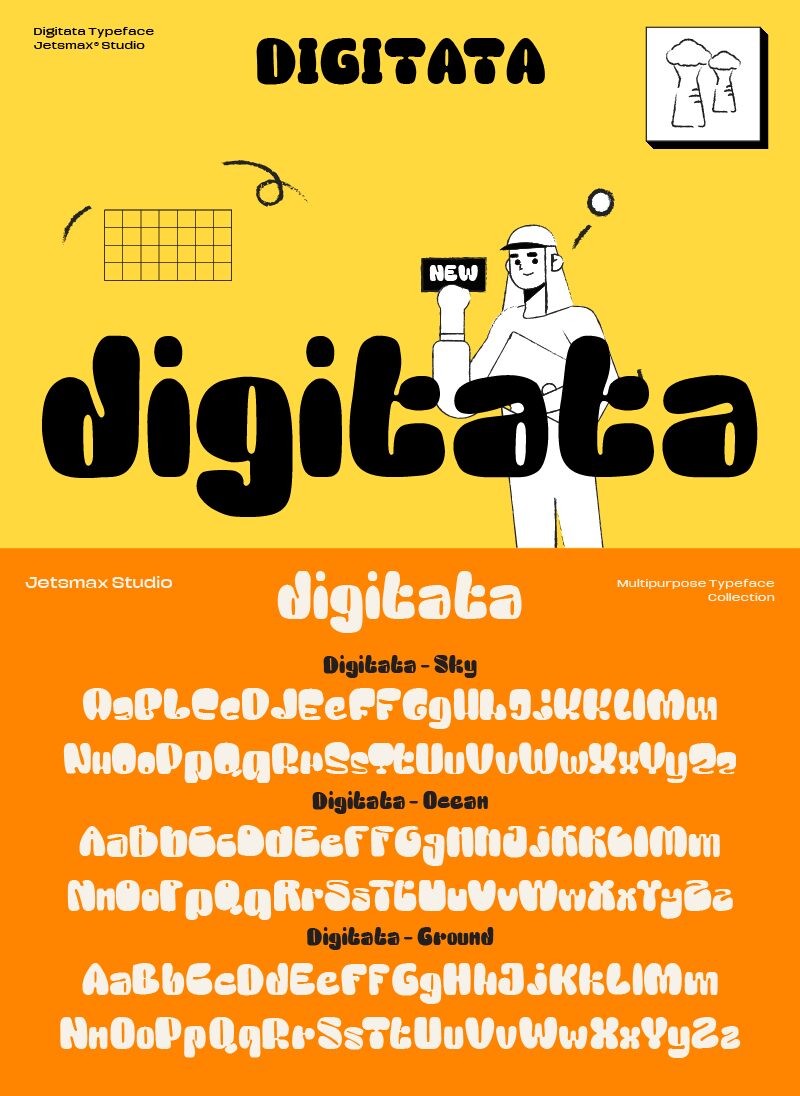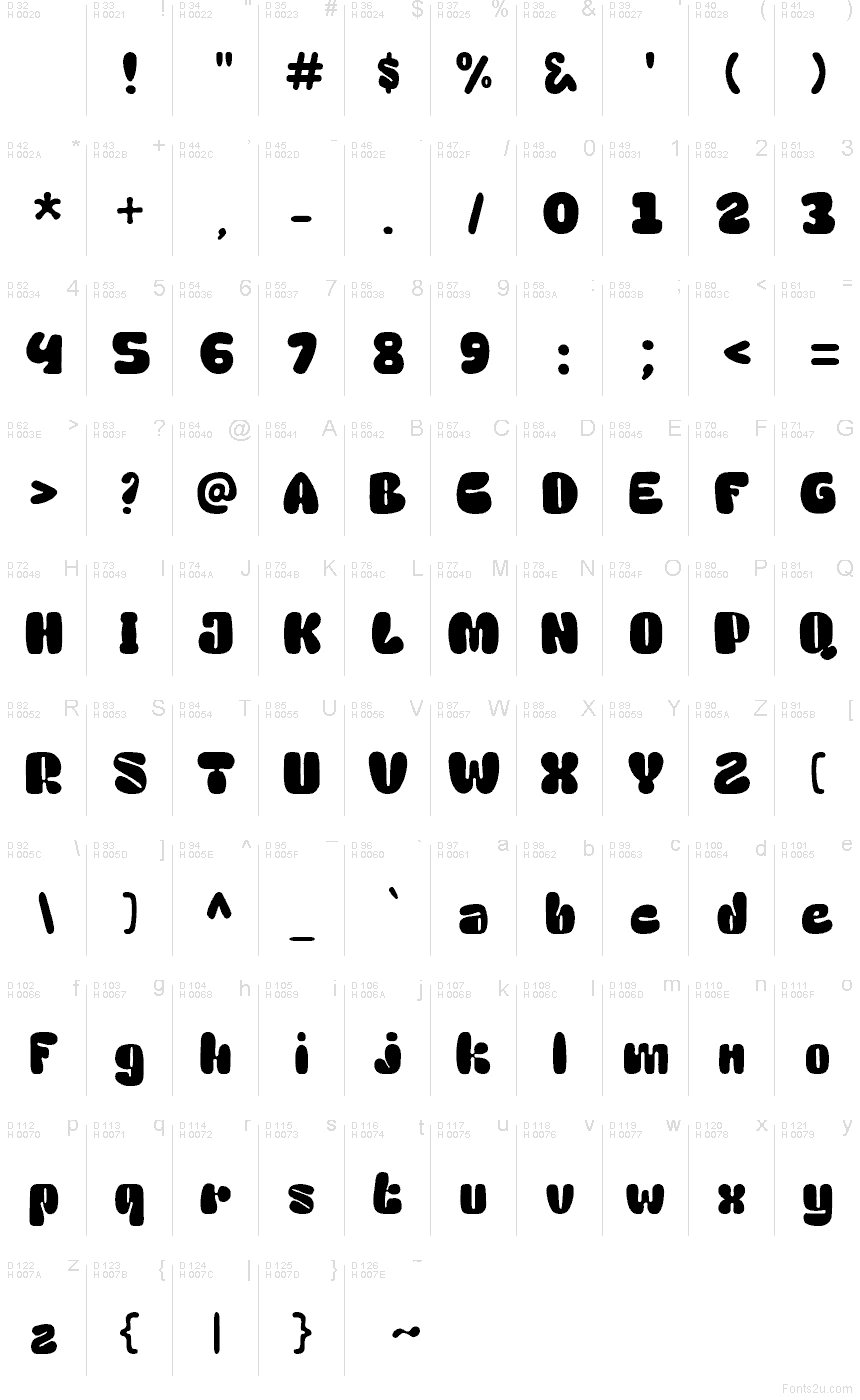
Digitata Ground
Digitata Ground font is a free cartoon font, and this chunky typeface looks like it was stamped in soft rubber—bold, bubbly, and slightly wobbly in the best way. The rounded shapes pack inky weight without feeling harsh, so your headlines read loud while staying friendly and snackable.
Using Digitata Ground, you’ll get instant character on kids’ posters, playful logos, YouTube thumbnails, sticker packs, comic-style titles, party invites, and casual packaging. Keep tracking a touch loose so the blobs can breathe, and pair it with a clean sans like a simple geometric font for body text; this free font shines biggest at large sizes.